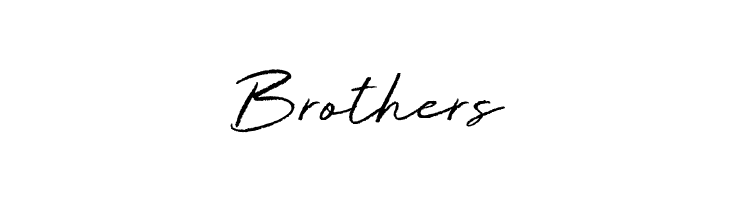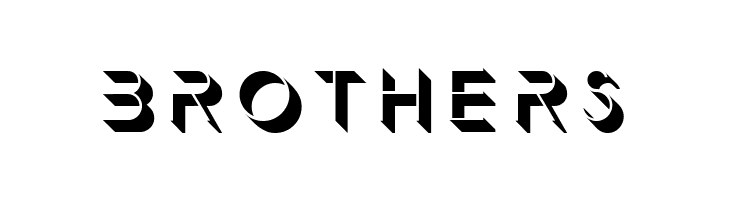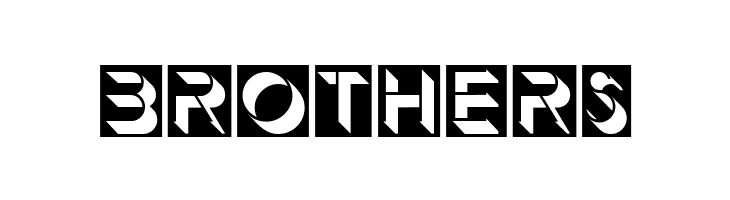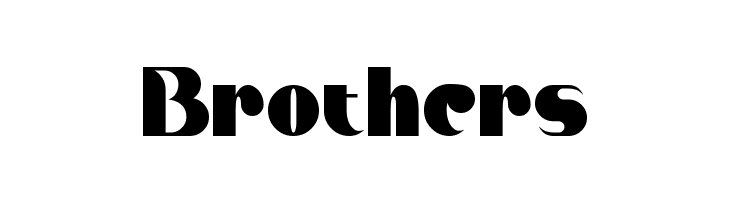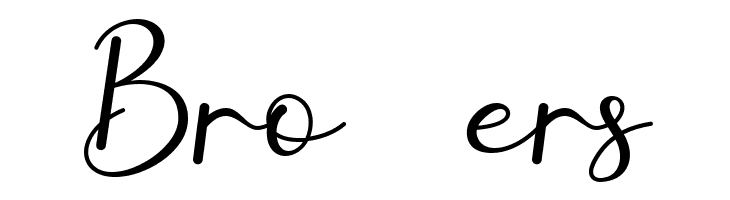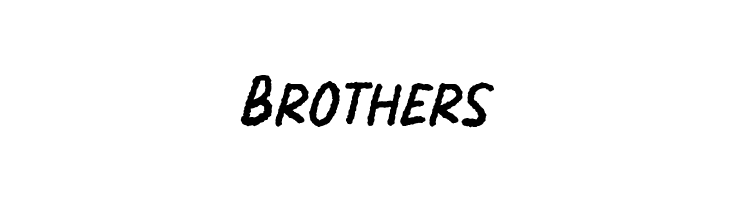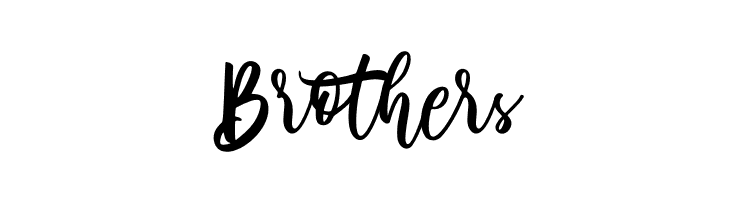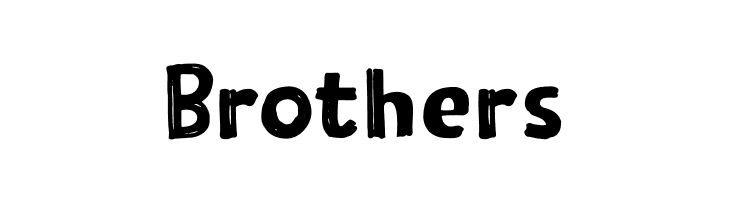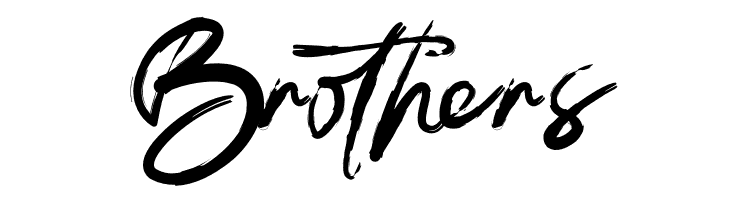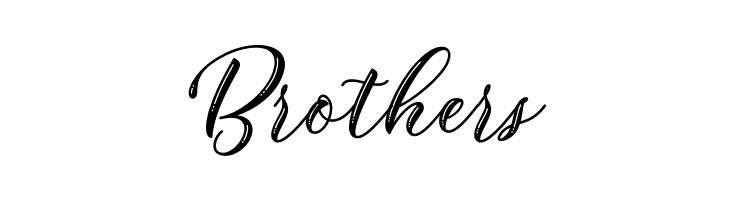
A high-contrast, elegant serif font with sharp serifs and narrow letterforms.
A sophisticated script font with elegant, flowing letters and decorative flourishes.
An elegant script font with flowing cursive letters and intricate swashes.
An elegant script font with flowing lines and intricate swashes.
A bold, expressive handwritten font with dynamic strokes and a casual style.
A bold, expressive handwritten font with fluid, dynamic strokes.
An elegant script font with flowing, handwritten characters.
A playful, decorative font with a whimsical, handwritten style.
A bold, hand-drawn font with a playful and energetic style.
A classic serif font with high contrast and elegant strokes.
A classic serif font with elegant, elongated strokes and sharp serifs.
A flowing, elegant script font with smooth, cursive strokes.
A bold, geometric font with a strong, modern aesthetic.
A lively and expressive handwritten font with dynamic strokes and playful loops.
A flowing, handwritten script font with dynamic contrast and elegant curves.
A modern, dotted font with geometric and digital appeal.
An elegant and sophisticated script font with intricate swirls and flourishes.
An elegant, high-contrast script font with ornate flourishes.
An elegant script font with flowing, cursive strokes and ornate uppercase letters.
An elegant script font with flowing, cursive letterforms and sophisticated flourishes.
A bold, handwritten font with a playful and dynamic style.
A bold, playful decorative font with irregular edges.
A playful, hand-drawn font with tall, narrow letters and consistent stroke width.
A decorative and modern font with playful uppercase and clean lowercase letters.
A graceful script font with elegant, flowing cursive characters and high contrast strokes.
A bold, playful script font with flowing letterforms and decorative flair.
A playful, handwritten script font with bold, curvaceous letters.
An ornate script font with floral monogram frames, exuding vintage elegance.
A modern, sans-serif font with clean lines and balanced character spacing.
An elegant, flowing script font with smooth, cursive letterforms.
A bold, cursive script font with elegant, flowing strokes.
A delicate, flowing script font with elegant, thin strokes and graceful curves.
An elegant, flowing script font with cursive letterforms and decorative flourishes.